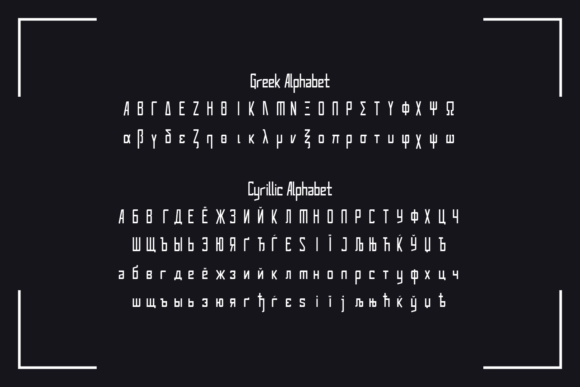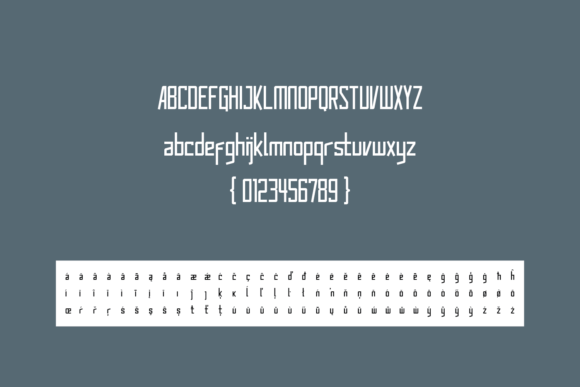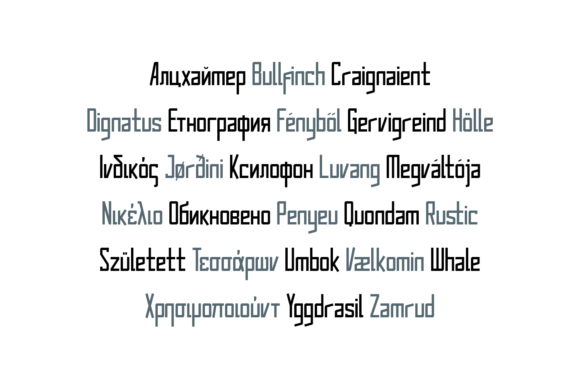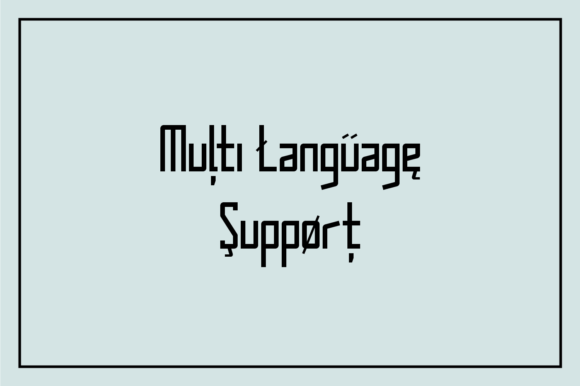
Introduction to Lacturism Font Font
Fonts play a crucial role in design, and the Lacturism Font font is a typeface that brings both character and versatility to any project. Whether you’re working on a branding project, a website, or a print design, the Lacturism Font font offers a unique style that can elevate your work.
The Lacturism is a futuristic sans serif font.
It has a minimalist style, making it suitable for large headlines as well as small body text It is perfect when used for displaying, website, branding, logos, magazines, headers, posters, films and every other creative design.
Key Features of Lacturism Font Font
Why Choose Lacturism Font Font?
The Lacturism Font font is more than just a typeface β it’s a design tool that helps you communicate your message with style and clarity. Its unique character set and versatile design make it suitable for a wide range of applications, from elegant invitations to bold headlines.
With its carefully crafted letterforms and balanced proportions, the Lacturism Font font ensures readability and visual appeal across all mediums.
What makes Lacturism Font font special?
The Lacturism Font font stands out with its unique design, exceptional readability, and versatility across various design applications.